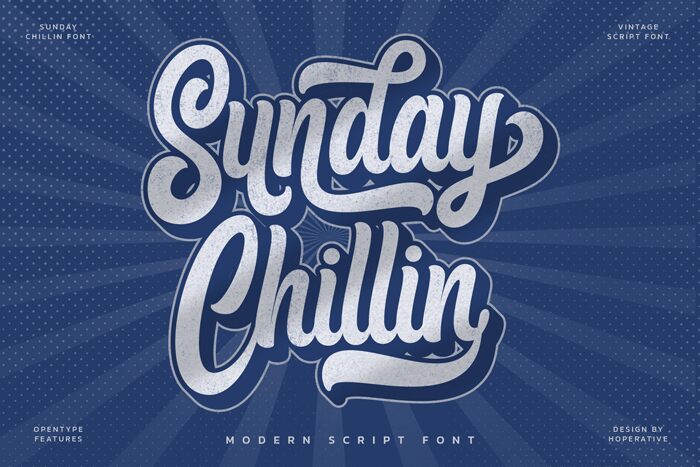
Sunday Chillin, a modern script font designed by Hoperative, exudes a captivating blend of elegance and casual charm. With its flowing, condensed letterforms, this typeface effortlessly evokes a sense of effortless sophistication. The delicate, yet confident strokes create a harmonious balance, lending an air of refined artistry to any design. Whether crafting invitations, branding materials, or editorial layouts, Sunday Chillin's unique personality can elevate the visual appeal and establish a memorable aesthetic.
This versatile font can seamlessly integrate into a diverse range of design projects, from high-end wedding stationery to trendy social media graphics. Its condensed width allows for flexible layout arrangements, making it a suitable choice for headings, titles, and eye-catching accents. Sunday Chillin's modern script style can infuse a touch of elegance and approachability, making it a compelling option for personal or commercial applications that seek to convey a refined, yet approachable brand identity.
Sunday Chillin